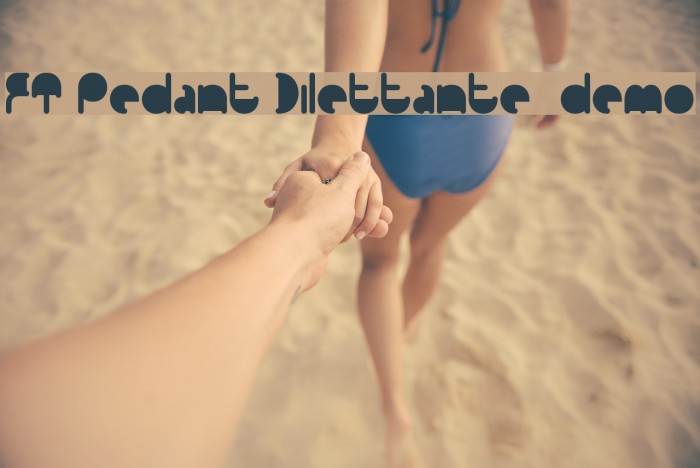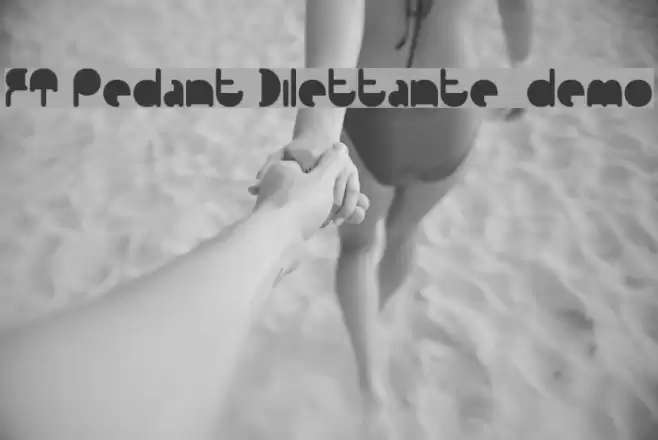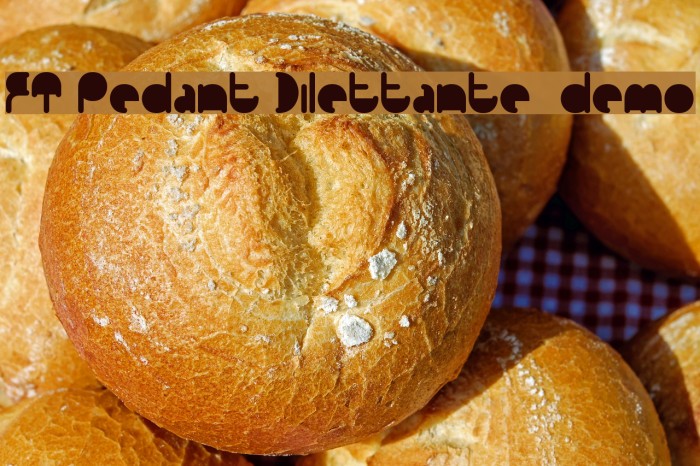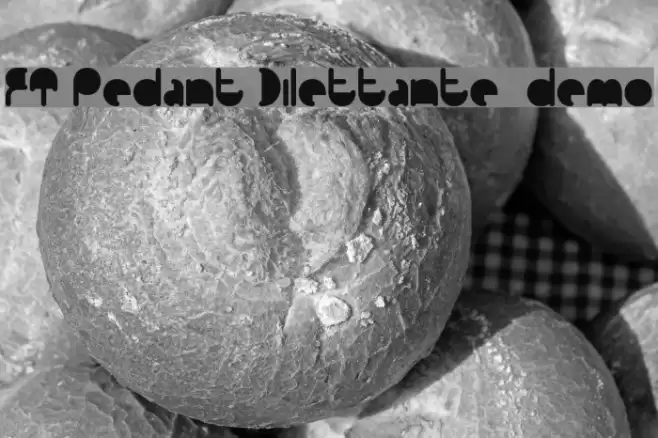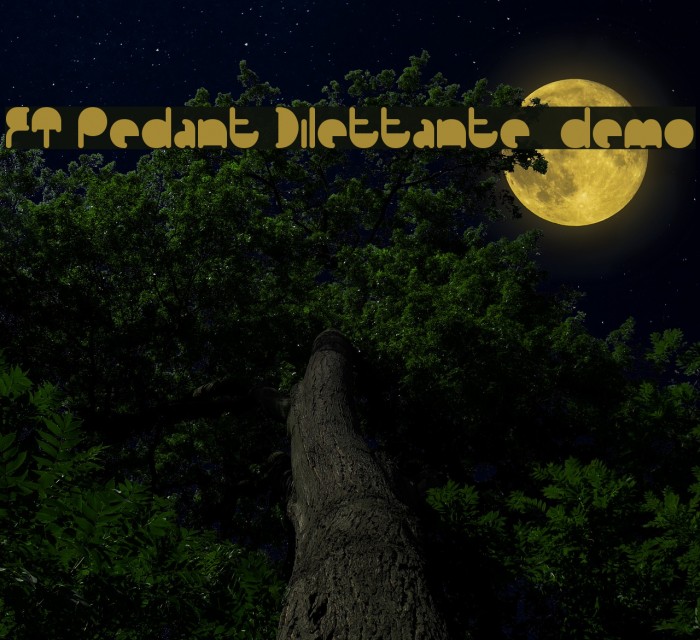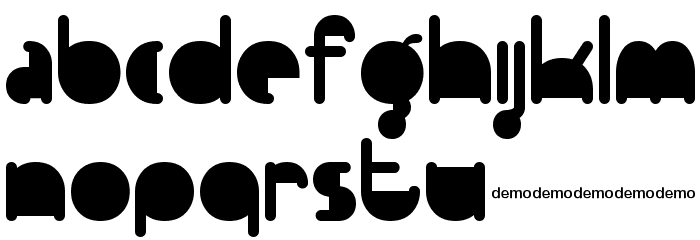
FT Pedant Dilettante demo Font
FT Pedant Dilettante demo Description
This font features a bold, geometric style with a distinctly modern and playful appearance. The characters are constructed with thick, rounded shapes, creating a sense of solidity and impact. The uppercase and lowercase letters maintain a consistent weight, contributing to a cohesive look. The design incorporates unique cutouts and curves, adding a decorative flair that makes it stand out. The font's overall aesthetic is both futuristic and retro, making it versatile for various creative applications. Its boldness ensures high readability, while the artistic elements provide visual interest.